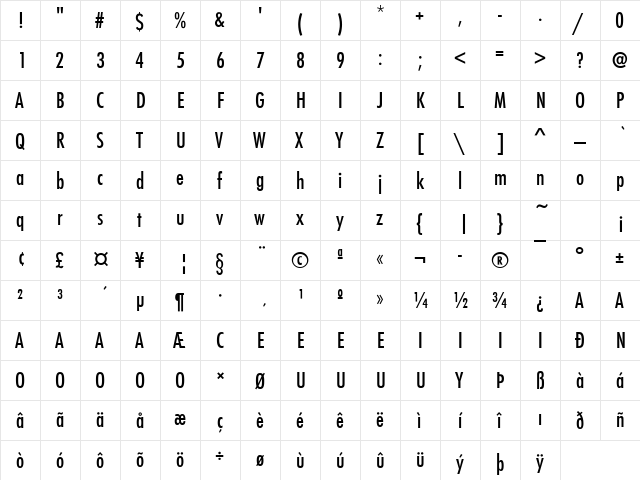
Futura T Condensed Medium
Design Context for Futura T Condensed Typeface
Futura T Condensed has a distinctly futuristic character, with geometric precision and clean angles that feel at home in technology, gaming, and sci-fi contexts. Its narrow stance lets it pack a punch even in space-constrained designs.
Pro Tip: Use Futura T Condensed in combination with a neutral sans for body text. Let it define the brand voice in headlines while keeping reading comfortable elsewhere.